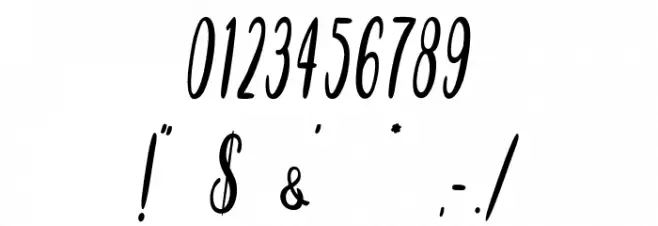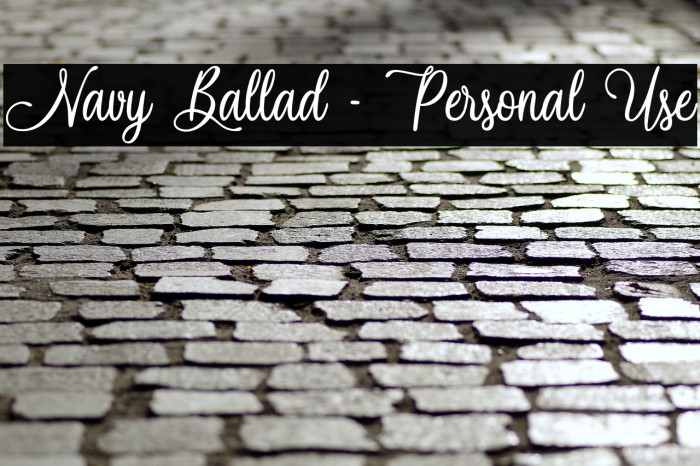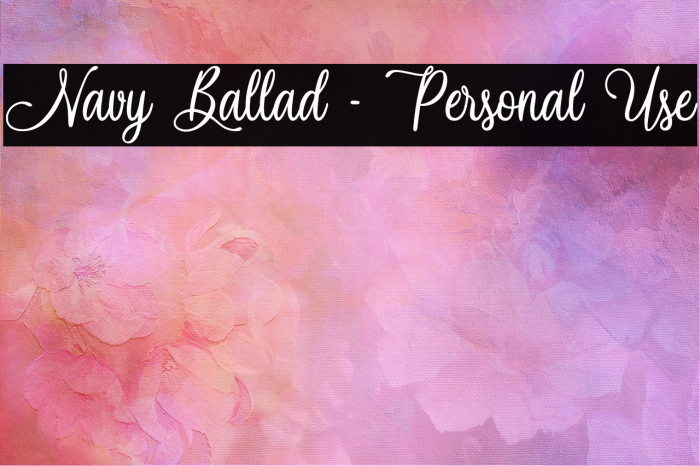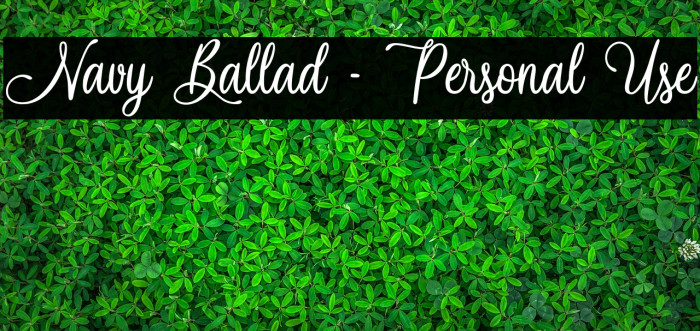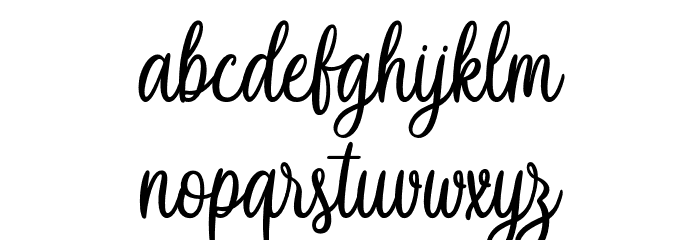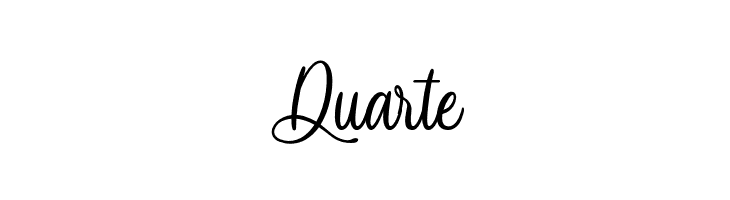
Navy Ballad - Personal Use Font
Navy Ballad - Personal Use Description
This elegant script font features a flowing, cursive style with a modern twist. The uppercase letters are characterized by their intricate loops and swirls, giving them a sophisticated and decorative appearance. The lowercase letters maintain a smooth, connected form, enhancing readability while preserving the font's artistic flair. The numerals are consistent with the overall style, offering a cohesive look. Special characters are thoughtfully designed to match the font's aesthetic, making it versatile for various uses. The font's overall design exudes a sense of grace and fluidity, making it ideal for projects that require a touch of elegance.
A graceful and flowing script font with decorative loops and swirls.
- Proposed Projects: Ideal for wedding invitations, elegant branding, greeting cards, and decorative signage.
- Category: Script
- Use Case: Logos, Invitations, Decorative text